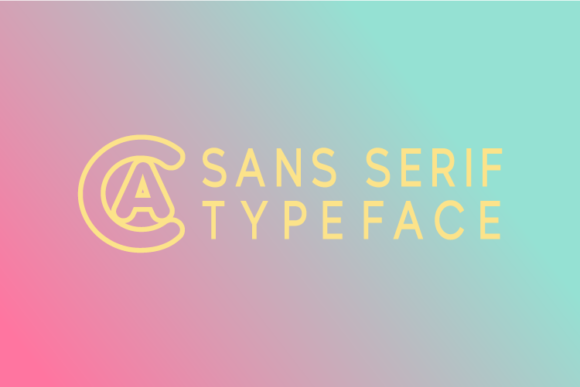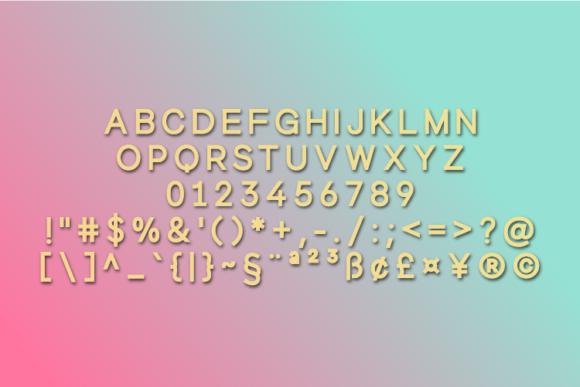
A New Classic: Elevating Your Design with Aleque Font
Have you ever been stuck staring at a blank page, waiting for the perfect font to bring your design to life? For many creatives, this is a familiar feeling – the moment when inspiration strikes and the possibilities seem endless. It’s in these moments that the right font can make all the difference, and that’s where Aleque Font comes in.
| 👤 Author | A Christie |
Aleque Font is a modern, classy sans serif typeface that’s designed to elevate your designs and leave a lasting impression. With its clean lines and sophisticated feel, it’s perfect for everything from logos and weddings to invitations and advertisements. Whether you’re a seasoned designer or just starting out, Aleque Font is a valuable addition to your toolkit – and with its versatility, you’ll find yourself reaching for it again and again.
Aleque Font Key Features
- Font Family: Aleque is a sans-serif font family.
- Language Support: Supports multiple languages, including Latin-based scripts and Cyrillic.
- Unique Characteristics: Aleque features a clean, modern design with geometric shapes and subtle rounded edges.
- Kerning and Glyphs: Includes advanced kerning and a wide range of glyphs, including ligatures and alternates.
Aleque Font Review
Overall, I think Aleque Font is a solid choice for designers looking for a clean and modern sans-serif typeface. ✨ Here are some of its strengths:
- Unique flair: Aleque Font has a distinct personality that sets it apart from more traditional sans-serif fonts.
- High legibility: The font is highly legible, even at smaller font sizes, making it suitable for body text.
- Wide language support: Aleque Font supports a wide range of languages, including Cyrillic and Greek alphabets.
- Limited bold and italic options: While Aleque Font has a range of weights, the bold and italic options are somewhat limited.
- Not ideal for headings: Due to its clean design, Aleque Font may not be the best choice for headings, as it can blend in with the body text.
Overall, I think Aleque Font is a great choice for designers who want a clean and modern sans-serif typeface for body text. While it may not be ideal for headings or have the most extensive bold and italic options, it’s a solid choice for a wide range of design projects.
Tips for Getting the Most Out of Aleque Font
Experiment with different font sizes, colors, and styles to create a cohesive design aesthetic.
Use Aleque Font in combination with other fonts to add visual interest and depth to your designs.
Take advantage of Aleque Font’s modern and clean design to create professional-looking text elements.
Aleque Font is suitable for a wide range of design applications, including:
- Corporate branding and identity
- Marketing materials and advertisements
- Print design and publishing